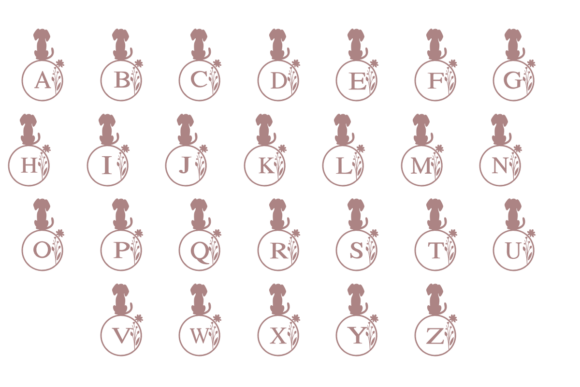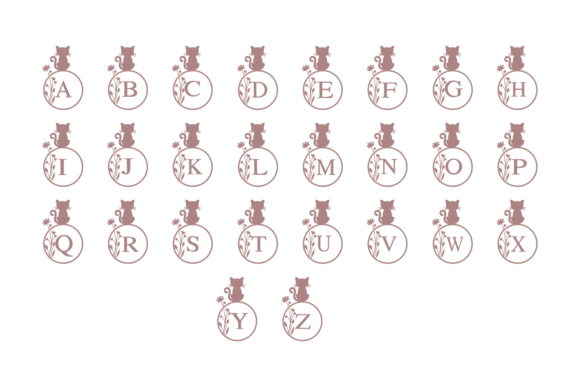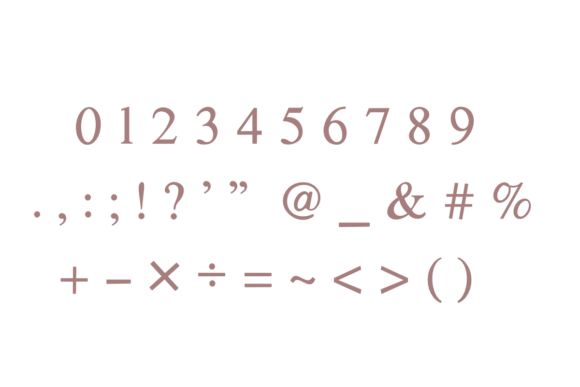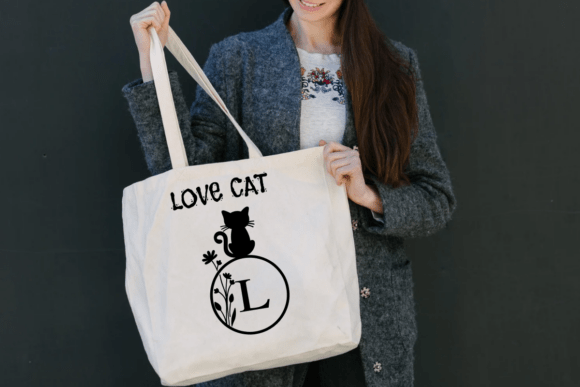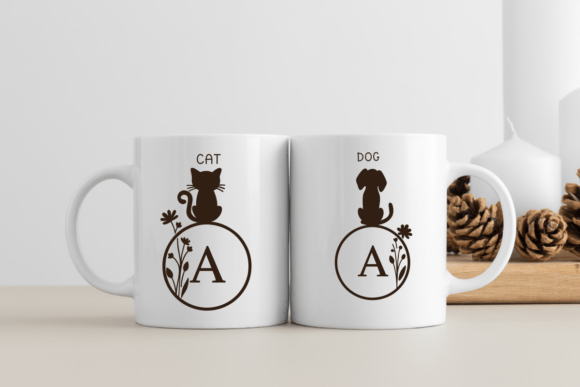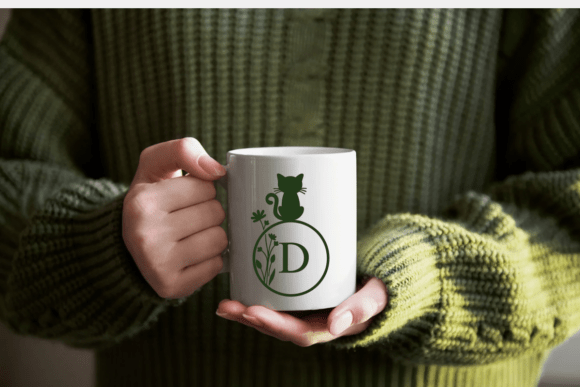
Get Ready to Purr-fect Your Designs with the Cat and Dog Font
As a designer, there’s nothing quite like the thrill of creating something that sparks joy in others. For me, it was a particularly late-night project where I was tasked with designing a greeting card for a friend’s new puppy. I wanted the design to capture the innocence and playfulness of the little ball of fluff, and that’s when I stumbled upon the Cat and Dog Font.
This charming decorative font is a dream come true for pet lovers and designers alike. With its whimsical letterforms, adorable cat and dog illustrations, and paw prints, it’s the perfect addition to any pet-related project. Whether you’re designing branding for an animal rescue organization or creating a kids’ book, the Cat and Dog Font brings warmth, companionship, and cuteness to every creation. Its versatility and charm make it a valuable asset for designers looking to add a personal touch to their work.
- Unique Characteristics: The Cat and Dog Font features a unique blend of modern and playful elements, making it suitable for a wide range of design applications, from children’s books to advertising materials.
Cat and Dog Font Review
Overall, I’d say the Cat and Dog Font is a cute and quirky addition to any design project. It’s perfect for pet-related themes, children’s books, or even advertisements that need a playful touch. ✨
The font’s unique design, which features cat and dog silhouettes, is sure to grab attention and add a fun element to your design. It’s also quite versatile and can be used for a variety of purposes, from headings to body text. ✨
While the Cat and Dog Font is a great choice for certain projects, it’s not without its limitations. Here are a few things to keep in mind:
- ⚠️ Limited character set: The font only includes a limited set of characters, which may not be suitable for complex or technical content.
- ⚠️ Not suitable for small text: Due to its playful and whimsical design, the font may not be readable at small sizes, which can make it difficult to use for body text.
- ⚠️ May not be suitable for formal content: The font’s lighthearted and humorous tone may not be suitable for formal or professional projects.
Overall, I’d recommend the Cat and Dog Font for designers who need a fun and playful addition to their projects. Just be sure to keep its limitations in mind when making your design decisions.
The “Cat and Dog Font” is perfect for:
- Children’s books and educational materials.
- Fun and playful advertisements.
- Personalized gifts and invitations.
Remember to use the “Cat and Dog Font” in moderation to avoid overwhelming your design.